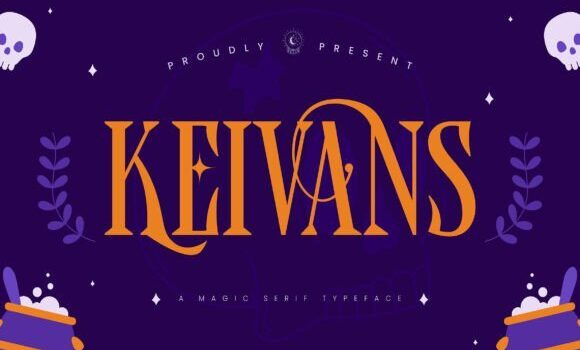
keivans
Keivans Font – Free Download Introduction to Keivans Font Keivans is a magical serif typeface that blends elegance with an enchanting, mystical flair. 📸 Preview Gallery 6 images 📌 Product Name Keivans Font 👤 Author TypeFactory 📂 Category Explore ⬇️